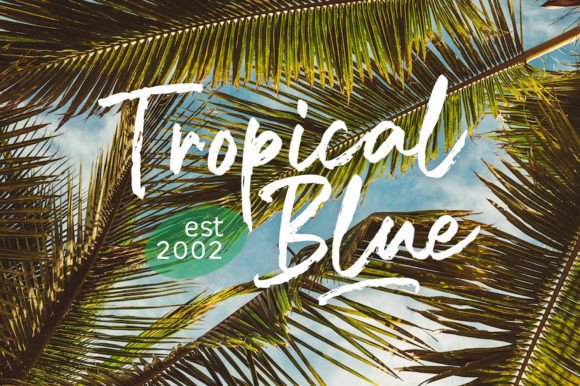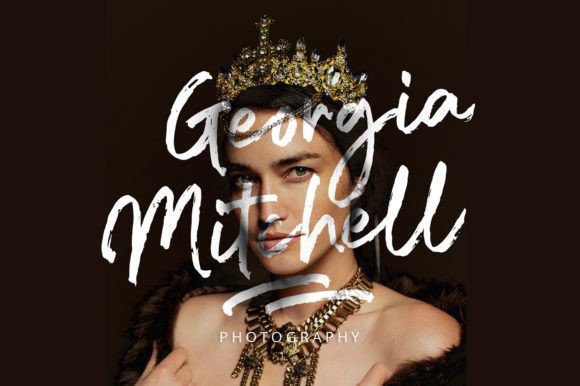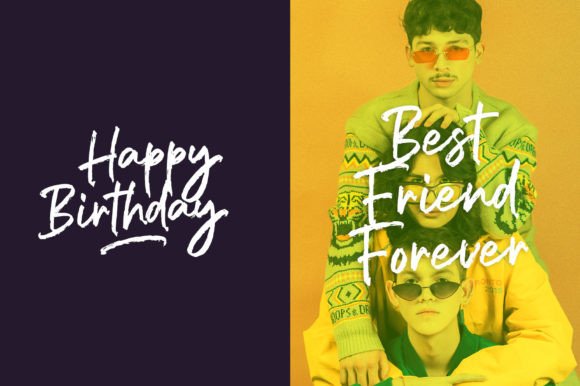
Introduction to Outlook Font
As a designer, there’s nothing quite like the thrill of stumbling upon the perfect font for a project. For me, it was the moment I discovered the Outlook Font – a game-changing, high-quality design resource that elevated my creative project to new heights. Its elegant, calligraphic script seemed to transport my words to a world of sophistication and refinement, making even the most mundane message feel like a luxury invitation.
| 👤 Author | Weape Design |
The Outlook Font is more than just a pretty face, though – it’s a valuable tool for designers looking to add a touch of grandeur to their work. With its PUA-encoded glyphs and swashes, you can effortlessly access a wide range of creative possibilities, from formal event invitations to high-end branding and product design. And the best part? You can download it for free, complete with a transparent background, making it the perfect addition to any design project.
Honest Review: Outlook Font
I recently had the chance to work with the Outlook Font, and I must say it’s been a game-changer for my creative projects. The free download is a major plus, and the high quality of the font is evident from the first use.
- ✨ The clean and modern design aesthetic is perfect for a wide range of creative projects.
- ⚠️ The font may not be suitable for small-scale text, as it can appear blurry or pixelated.
- ⚠️ Some users may find the font’s modern design to be too trendy or overwhelming.
Overall, I’m really impressed with the Outlook Font. It’s a fantastic design resource that I’ll be using for all my future projects. Its high quality, versatility, and ease of use make it a must-have for any designer looking to elevate their creative project.
Tips for Getting the Most Out of Outlook Font
Use Outlook Font on a transparent background to create a modern and sleek design. Experiment with different font sizes and colors to add depth and visual interest to your creative project.
Outlook Font is commonly used in business and professional settings, such as presentations and reports. It’s also a popular choice for creative projects, such as brochures and flyers, due to its high-quality design and versatility.